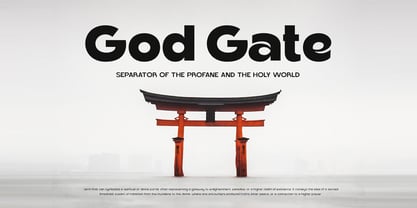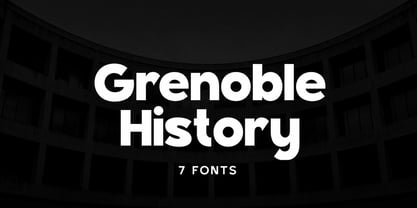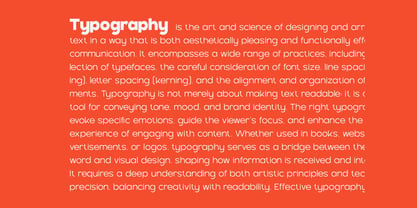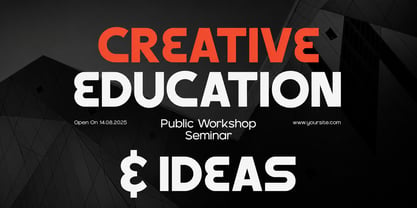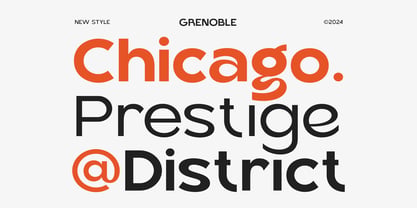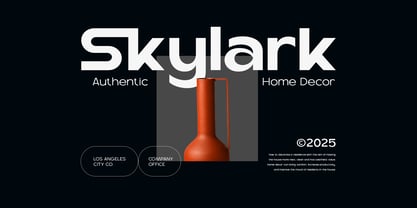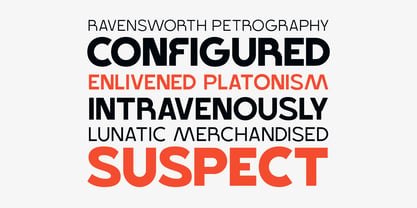
Grenoble History
La familia tipográfica Grenoble History fue diseñada por Faizul Muna y publicada por Unitype Studio. Grenoble History contiene 7 estilos y opciones de paquete familiar. Más información sobre esta familia
Grenoble History – Geometric Sans Serif Font Family
Grenoble History is a modern geometric sans-serif font family that combines precision, clarity, and timeless typographic style. Designed with clean lines, sharp angles, and balanced proportions, Grenoble History delivers a professional and sophisticated appearance that works beautifully across a wide range of creative and commercial design projects.
Built with a strong geometric structure, each letterform reflects simplicity and accuracy while maintaining a friendly and highly readable shape. The carefully crafted design ensures visual harmony, allowing Grenoble History to stand out while remaining elegant and functional.
Inspired by the classic neo-grotesk typography movement of the 20th century, Grenoble History features minimal stroke contrast and structured geometry that create a modern yet timeless aesthetic. Its generous x-height enhances legibility, making the font ideal for both large headlines and long paragraphs of text.
Grenoble History performs exceptionally well in both digital and print environments. Whether used in editorial layouts, websites, user interfaces, or branding materials, the font keeps designs clean, structured, and visually balanced. Designers can easily build strong typographic hierarchies thanks to the consistent spacing and well-proportioned characters.
With its versatile and contemporary style, Grenoble History is perfect for branding, packaging, posters, magazines, advertising, and corporate communication. The font’s confident personality also works beautifully for logos, signage, and modern visual identities that require clarity and impact.
From professional branding systems to creative campaigns, Grenoble History offers a reliable and stylish typographic solution. Its geometric elegance helps designers communicate ideas with precision, simplicity, and modern sophistication.
Key Features
Modern Geometric Sans Serif
Clean geometric construction inspired by classic neo-grotesk typography.
High Readability
Large x-height and balanced spacing ensure excellent clarity across sizes.
Professional & Minimal Style
Perfect for modern branding and minimalist design aesthetics.
Versatile Font Family
Includes multiple weights for flexible design and typographic hierarchy.
Multilingual Support
Extended characters for international language support.
Perfect For
• Branding & Corporate Identity
• Editorial Layouts & Magazines
• Website & UI Design
• Posters & Advertising Campaigns
• Packaging & Product Labels
• Logos & Signage
• Social Media Graphics
• Modern Business Presentations
Additional Features